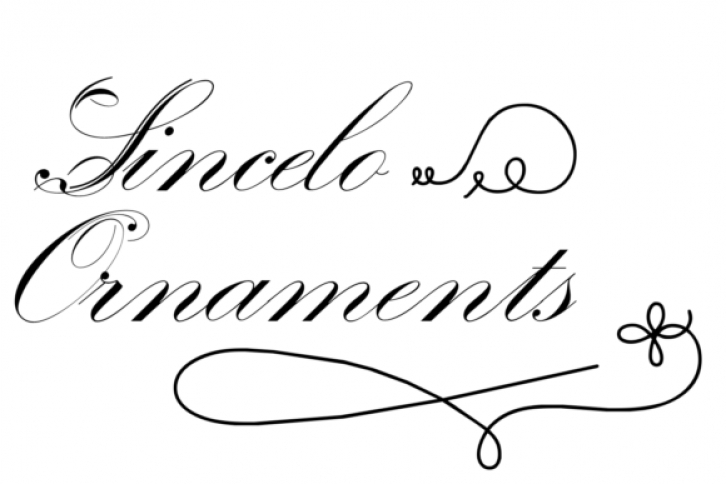
Sincelo Ornaments is an incredibly unique and useful dingbats font. It is suitable for any branding, product packaging, invitation, quote, t-shirt, label, poster, logo that you wish to develop.